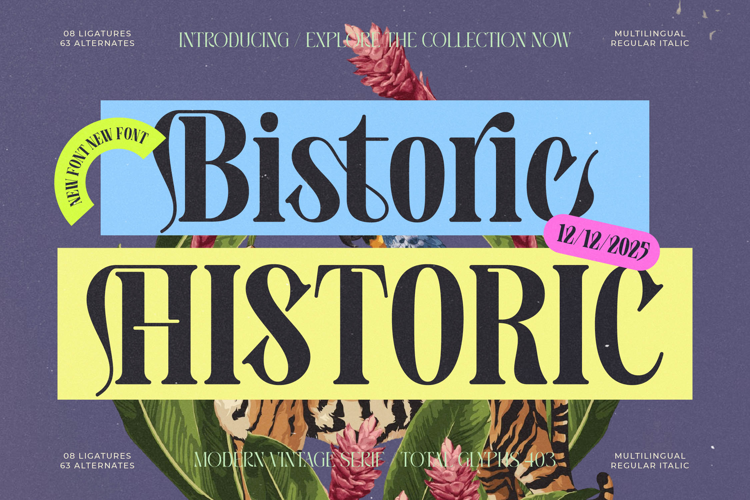
Bistoric Historic - Modern Vintage Serif
Unleash an era of unapologetic elegance with Bistorie, a dynamic display serif that commands attention. This typeface is a masterclass in contrast, where razor-sharp serifs meet graceful, flowing curves to create a truly unforgettable personality. Bistorie delivers a powerful fusion of classic heritage and contemporary energy, offering a sophisticated voice that is both timeless and strikingly modern. From its assertive upright form to its expressive italic, this font family is designed to make an immediate and lasting impact.